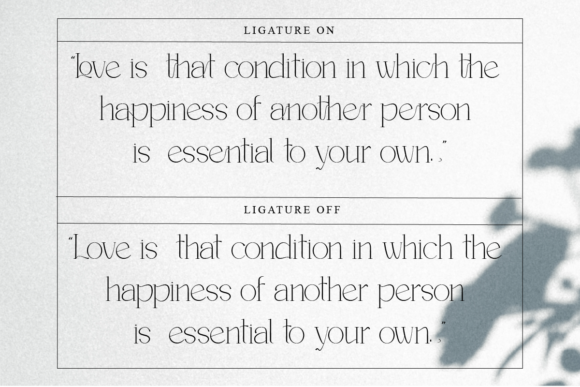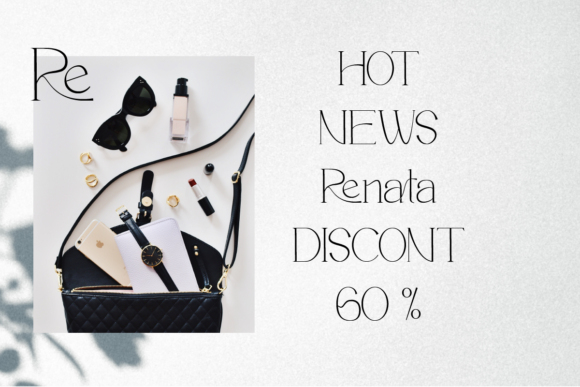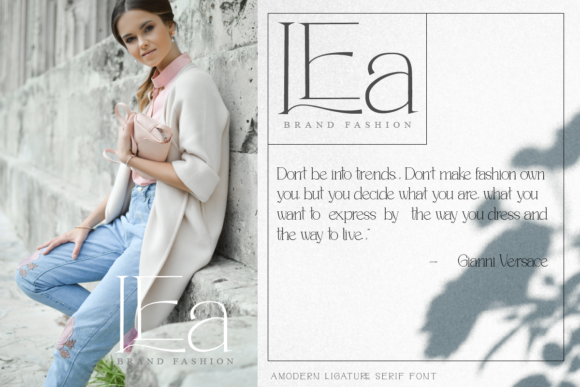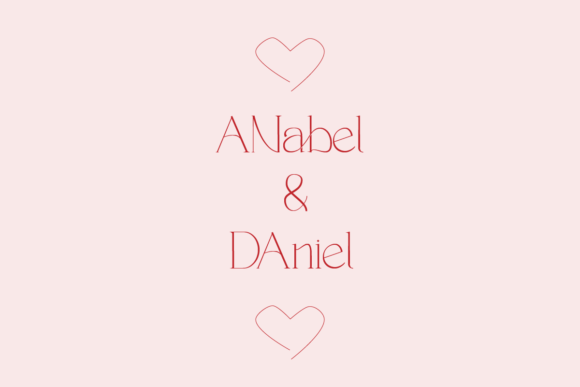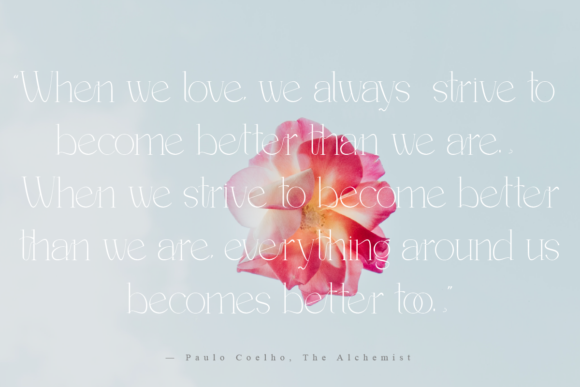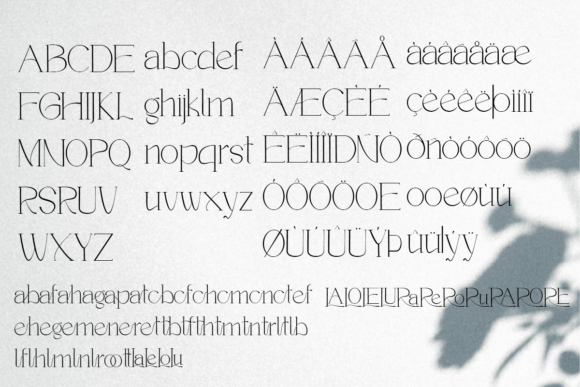
Introduction to Romentic Font
Have you ever found yourself stuck on a creative project, desperately searching for the perfect font to bring your vision to life? I know I have. It’s that moment of frustration when you finally stumble upon a design resource that makes all the difference – a font that elevates your work from good to great.
Meet the Romentic Font, a stunning, thin, and elegant serif font that will transport your ideas to new heights. With its high-quality design and PUA encoding, you’ll be able to access all the glyphs and swashes with ease, making it the ultimate tool for any creative project.
Whether you’re working on a free download or a paid design, the Romentic Font is a valuable addition to any designer’s arsenal. Its transparent background and sophisticated look make it perfect for a wide range of applications, from branding and marketing materials to editorial and publishing projects.
Key Features of Romentic Font
- High-quality design resource for creative projects, offering a unique and elegant style.
- Transparent background, allowing for easy layering and customization in your design projects.
- Available in a range of sizes, from 12pt to 72pt, to suit various design needs and applications.
- Resolution: 300 DPI, ensuring crisp and clear typography for print and digital designs.
- Perfect for designers, artists, and writers seeking a sophisticated and stylish font for their creative projects.
Honest Review: Romentic Font
As a designer, I’m always on the lookout for high-quality design resources to elevate my creative projects. The Romentic Font caught my eye, and I was excited to give it a try.
- ✨ High-quality design: The Romentic Font boasts a beautiful, elegant design that’s perfect for romantic-themed projects.
- ✨ Transparent background: The font includes a transparent background option, which is a huge plus for designers who want to create seamless designs.
- ⚠️ Limited character set: Unfortunately, the Romentic Font has a limited character set, which may not be suitable for longer texts or complex designs.
- ⚠️ Not ideal for bold text: While the font is beautiful, it may not be the best choice for bold or dramatic text, as it can become a bit overwhelmed.
Overall, the Romentic Font is a great addition to any designer’s toolkit. While it has some limitations, its high-quality design and free download make it a must-have for any creative project.
How to Use Romentic Font
Romentic Font is a high-quality, free download design resource perfect for creative projects. Its unique style and transparent background make it an ideal choice for various design applications.
Insert the Romentic Font into your presentation or document. You can use it for headings, titles, or body text to add a touch of elegance and sophistication.
Tips for Getting the Most Out of Romentic Font
Experiment with different font sizes, colors, and combinations to achieve the desired effect. Use Romentic Font to add a touch of elegance and sophistication to your designs.
Romentic Font is perfect for various design applications, including:
- Brand logos and identity designs
- Typography-based designs and art
Alternatives to Romentic Font
Pacifico Font is a beautiful, high-quality font perfect for designers who want to add a touch of sophistication to their creative project. It’s a great choice for designers who need a font with a transparent background and a unique, cursive design. When to use: Wedding invitations, fashion magazines, and any design project that requires a elegant look. Comparison to Romentic Font: Pacifico Font has a more relaxed and casual design compared to Romentic Font, making it a better choice for projects that require a more laid-back tone.
Q: Is Romentic Font suitable for high-resolution designs and print materials?
Yes, Romentic Font is designed to be high-quality and suitable for high-resolution designs and print materials. It supports advanced typography features and is optimized for use in various design applications, including graphic design, digital design, and print design.